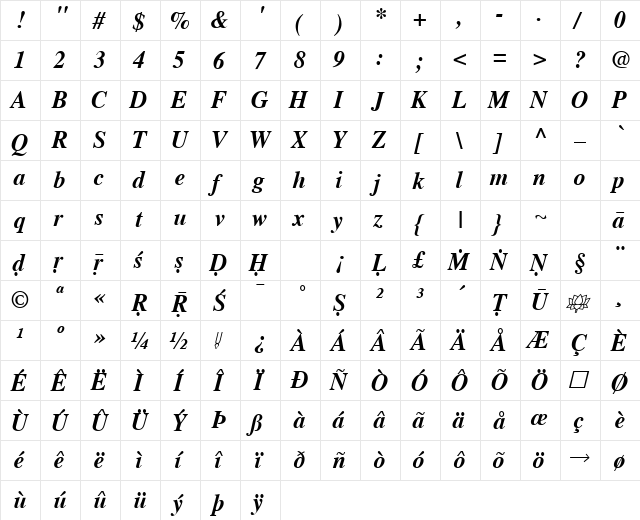
Sanskrit-Times Bold Italic Font Preview
Design Context for Sanskrit-Times Typeface
Sanskrit-Times takes a measured approach to typography — its balanced proportions and neutral character make it a reliable workhorse for both digital and print work. Its italic angle brings a sense of urgency and motion to the letterforms. Its bold stroke weight gives it real presence on the page.